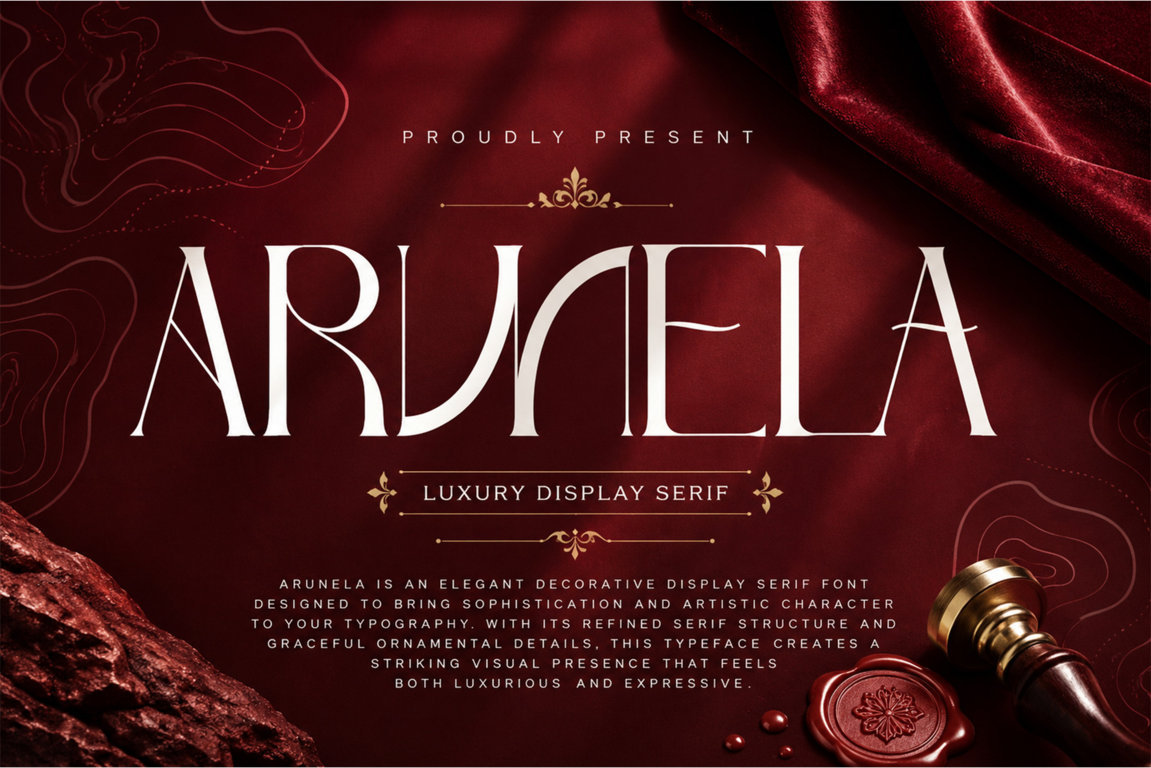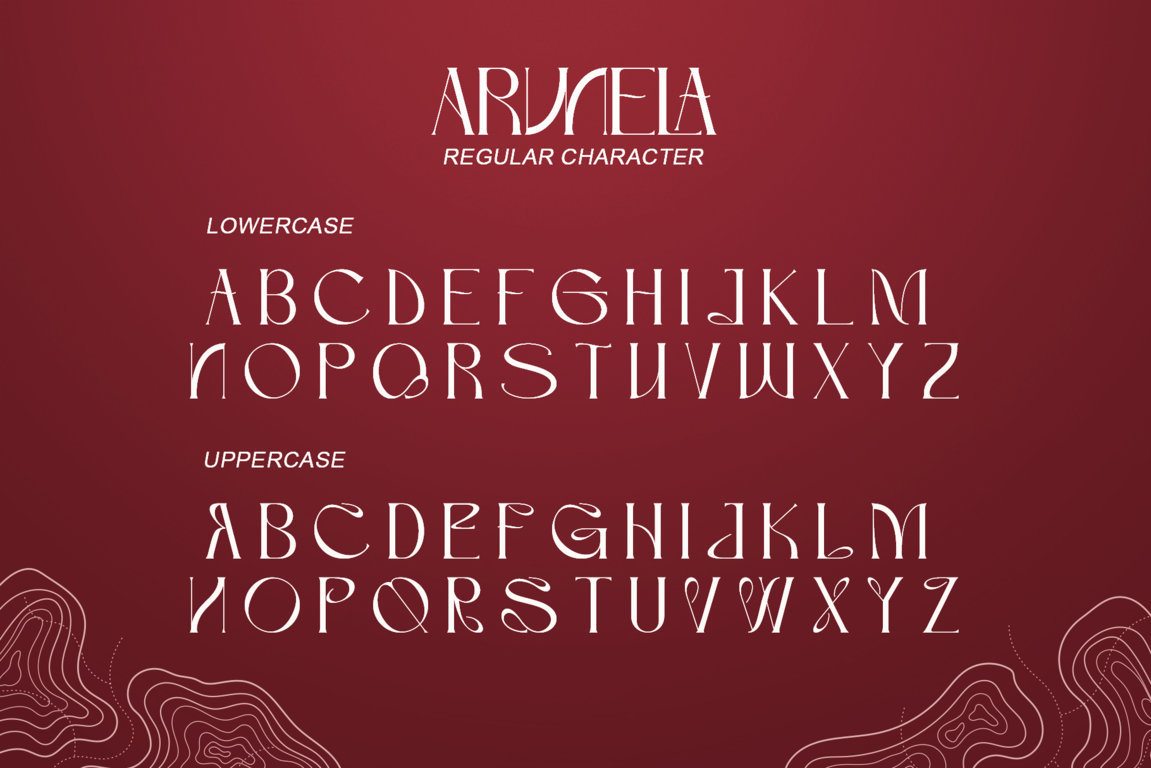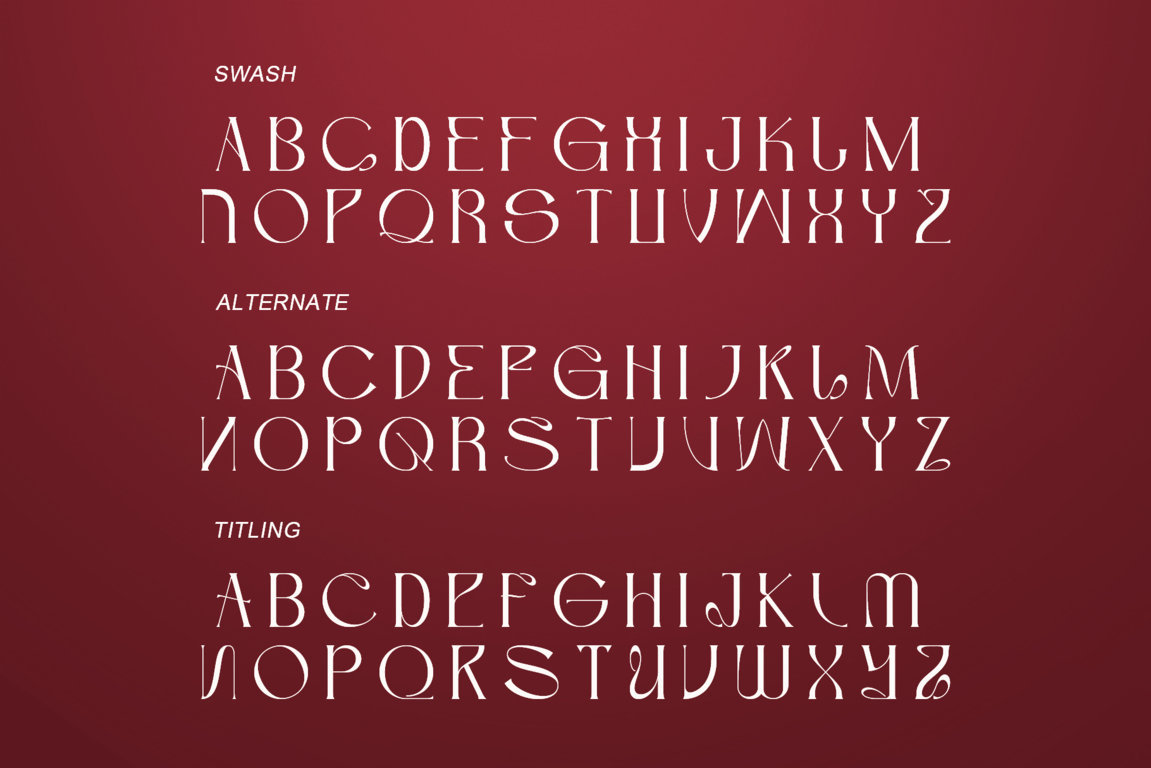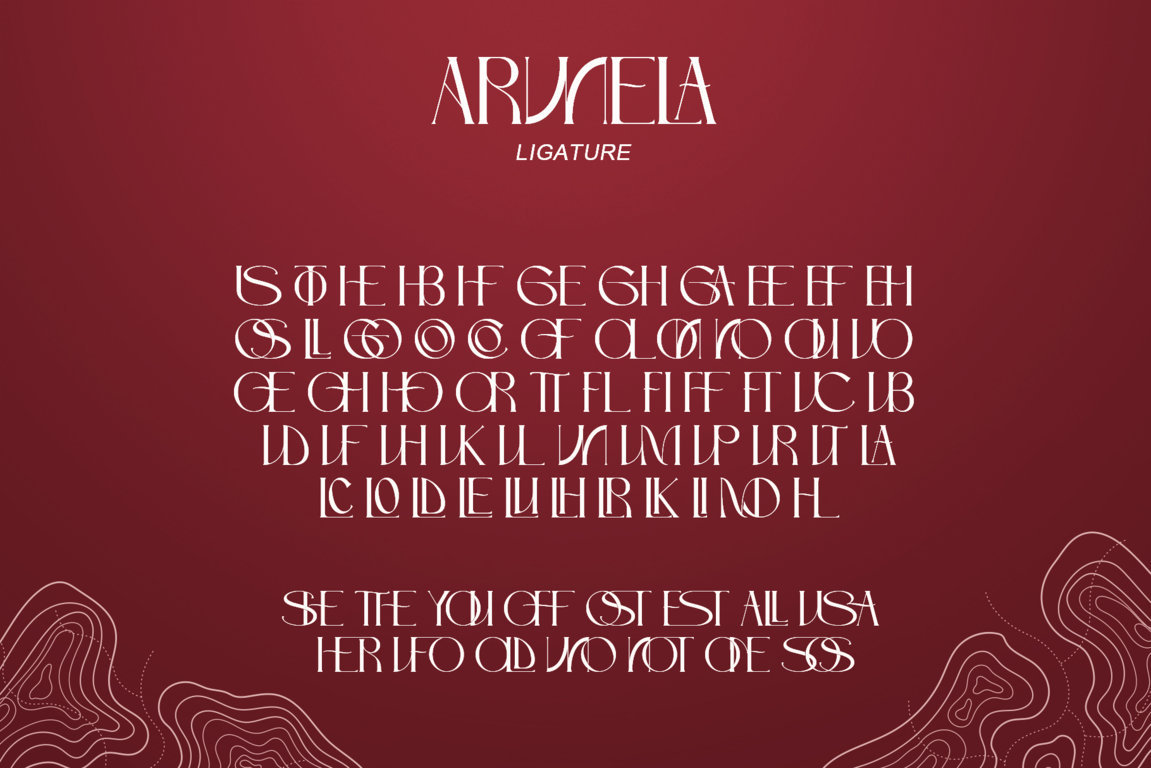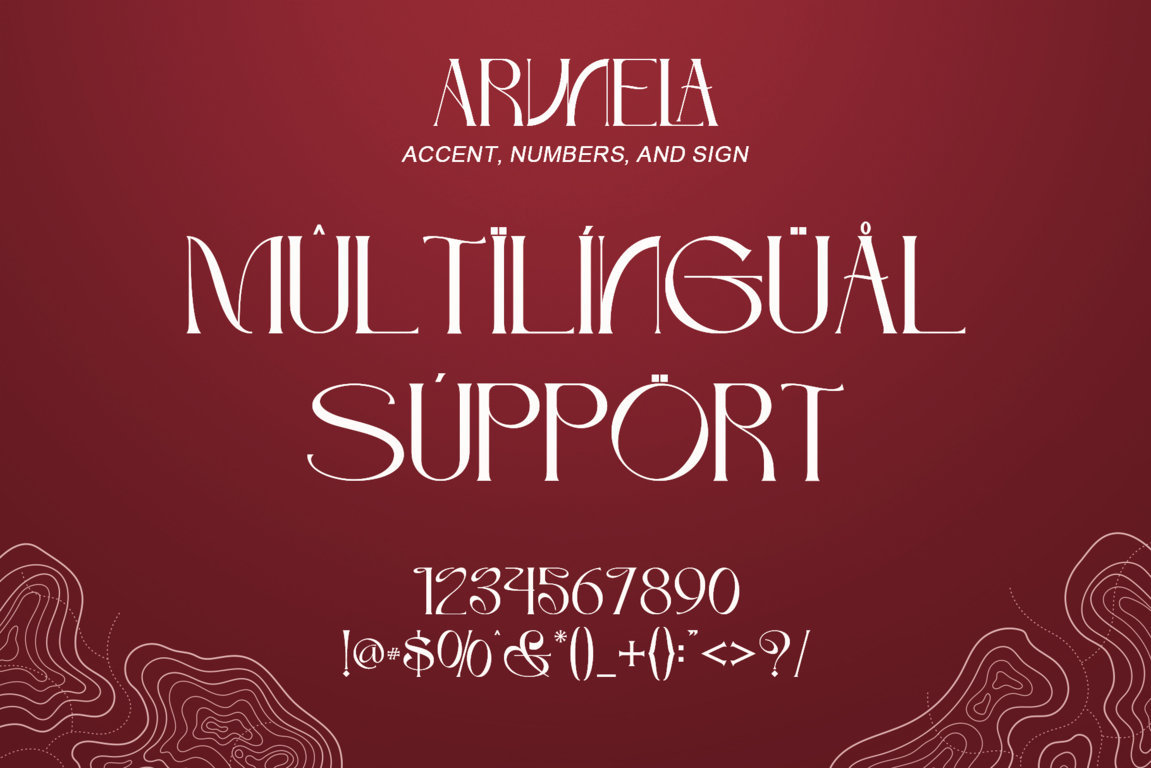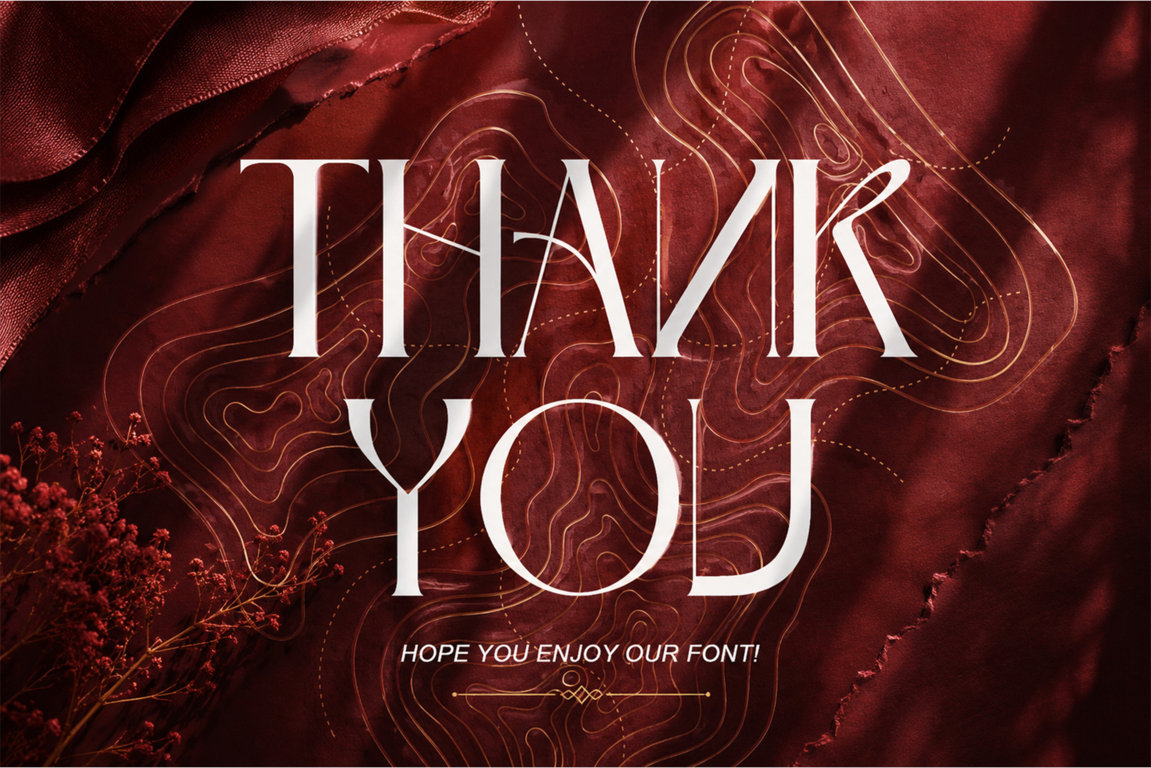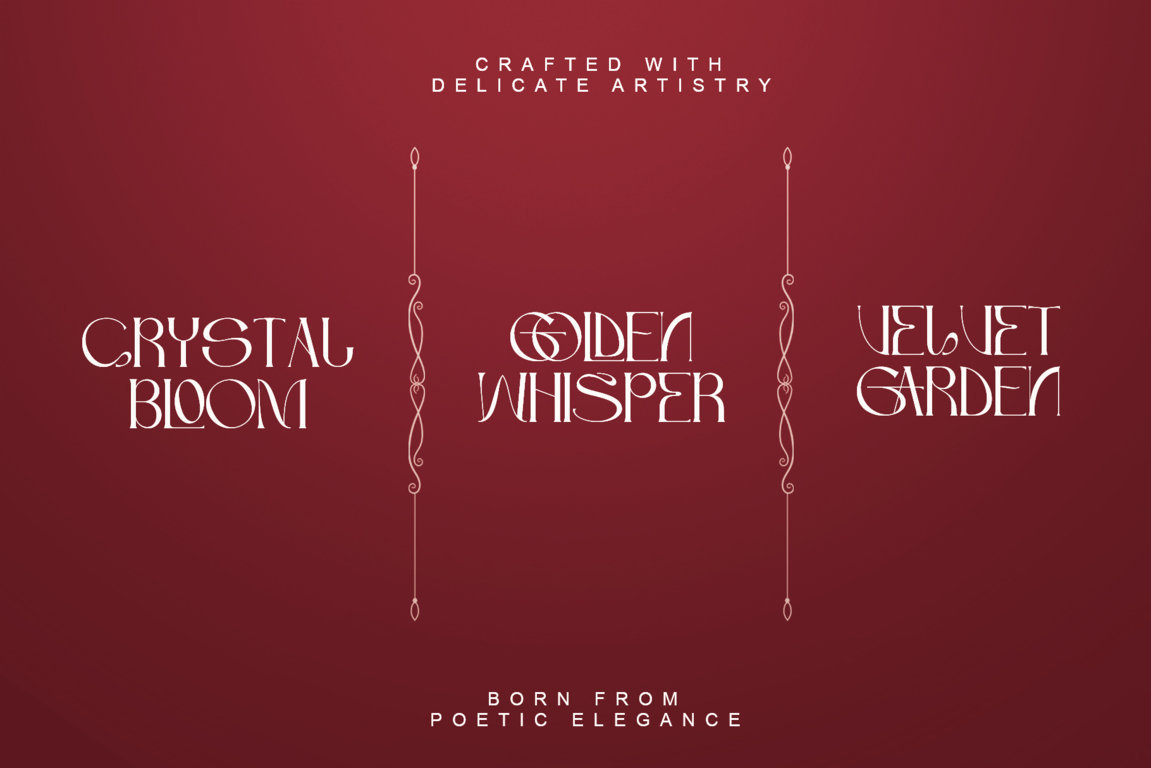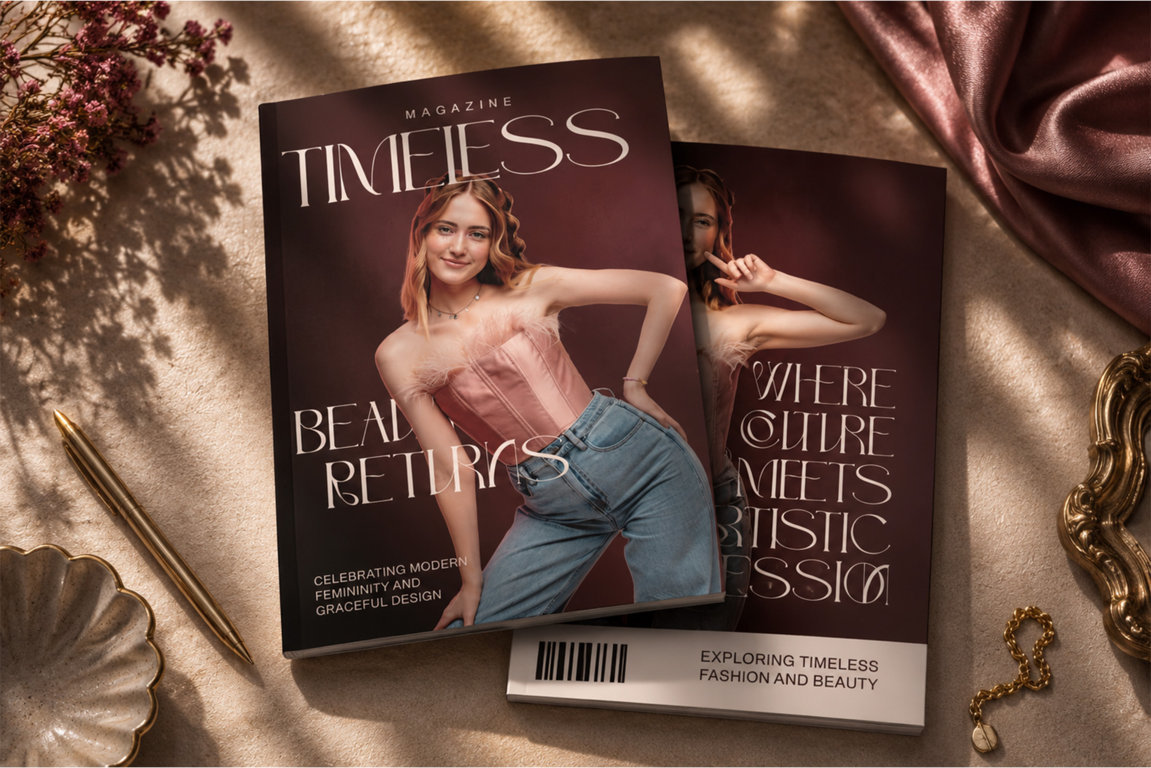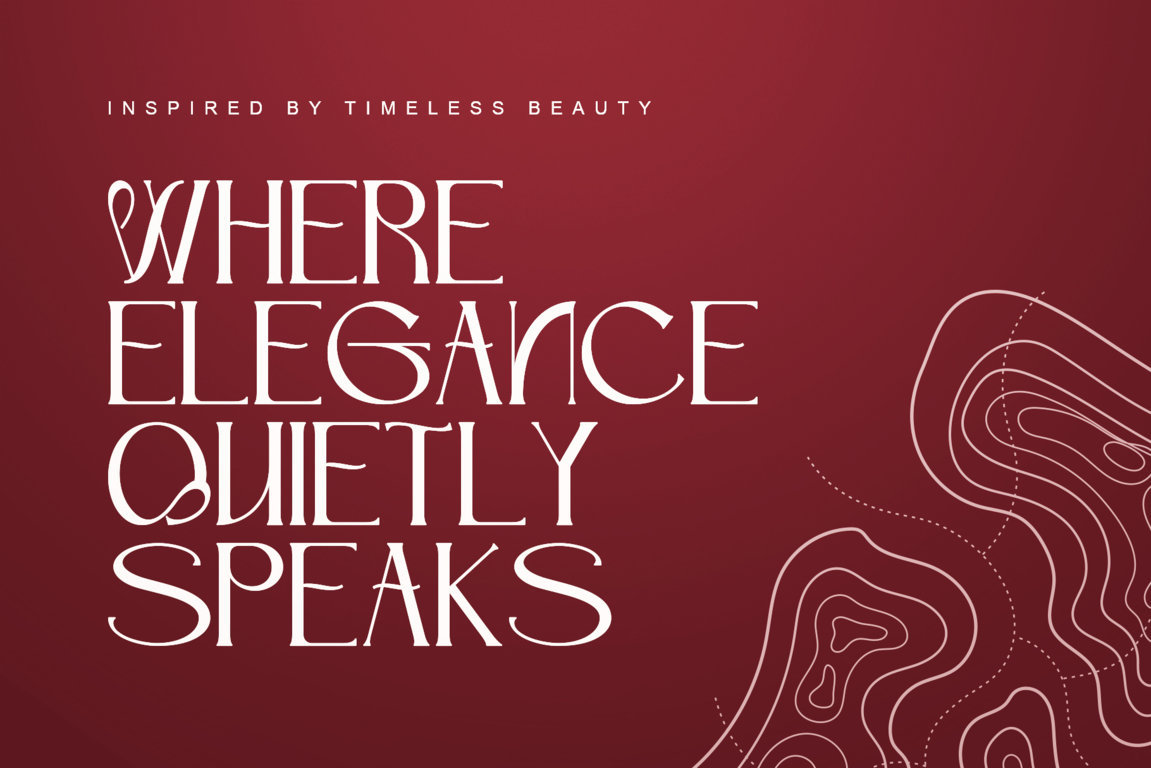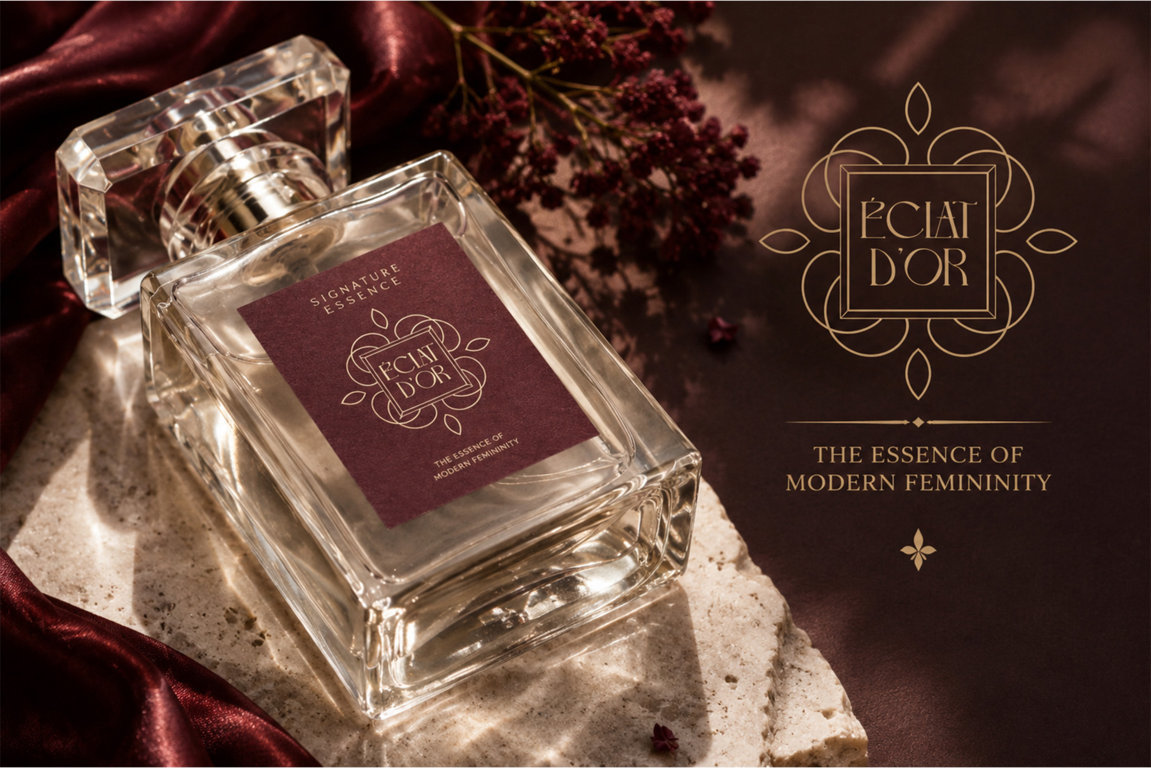
Arunela – Elegant Luxury Serif Font
Arunela is an elegant luxury display serif designed to bring sophistication, clarity, and artistic character into modern typography. With its refined letterforms, graceful curves, and balanced serif structure, this typeface creates a strong visual presence that feels timeless, professional, and distinctive, making it an excellent choice for premium branding, editorial design, packaging, corporate identity, and high-end visual presentations that require both beauty and authority.
Features:
• Support multilingual; ä ö ü Ä Ö Ü ß ¿ ¡
• Numerals & Punctuation
• uppercase letters
• Alternate, swash, titling, & Ligature
Support for 65 languages:
Afrikaans, Albanian, Asu, Basque, Bemba, Bena, Breton, Catalan, Chiga, Cornish, Danish, Dutch, English, Faroese, Filipino, French, Friulian, Galician, German, Gusii, Icelandic, Indonesian, Irish, Italian, Kabuverdianu, Kalenjin, Kinyarwanda, Luo, Luxembourgish, Luyia, Machame, Makhuwa-Meetto, Makonde, Malagasy, Manx, Morisyen, North Ndebele, Norwegian Bokmål, Norwegian Nynorsk, Nyankole, Oromo, Portuguese, Quechua, Romansh, Rombo, Rundi, Rwa, Samburu, Sango, Sangu, Scottish Gaelic, Sena, Shambala, Shona, Soga, Somali, Spanish, Swahili, Swedish, Swiss German, Taita, Teso, Uzbek (Latin), Vunjo, Zulu.